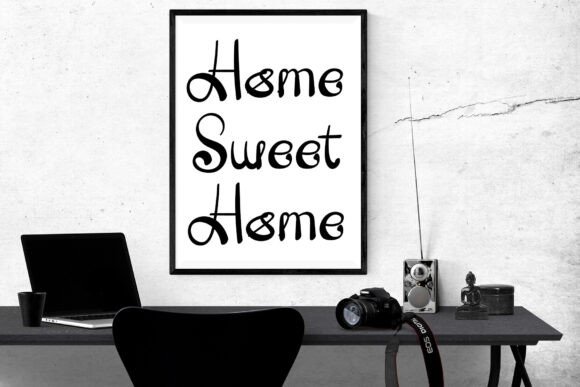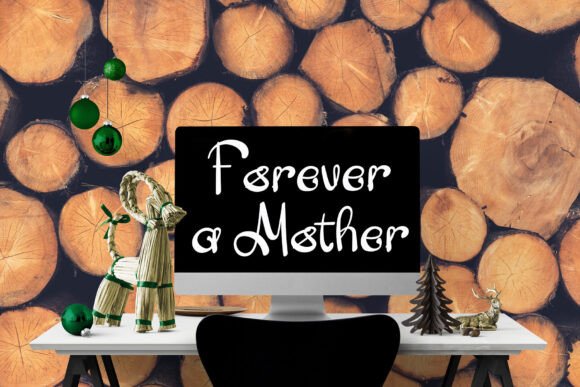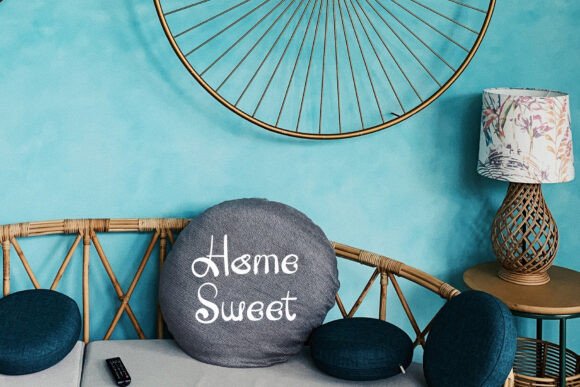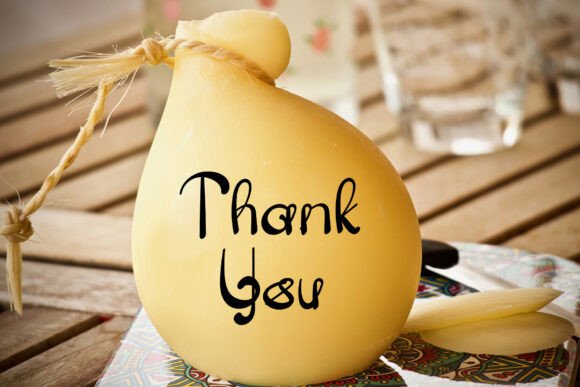
Introducing Anotherin Love Font: Elevate Your Designs with Elegance
Are you searching for a font that adds a touch of sophistication and romance to your projects? Look no further than Anotherin Love Font, a beautifully crafted typeface designed to make your creations stand out. In this article, we’ll delve into the features and benefits of Anotherin Love Font, and explore how it can be the perfect addition to your design toolkit.
A Professionally Crafted Font for Your Projects
Anotherin Love Font is a unique and elegant font, specially designed with a professional hand touch to ensure that your projects look polished and refined. Whether you’re working on a wedding invitation, a birthday card, or any other type of project that requires a personal touch, this font is perfect for the job. Its versatility makes it suitable for a wide range of applications, from formal events to creative school assignments.
Ideal for Various Creative Projects
This font is not just limited to greeting cards and party invitations. Its elegance and charm can be applied to various creative projects, including:
- Wedding invitation cards
- Birthday cards
- Party invitations
- School assignments
- Important events and announcements
With Anotherin Love Font, you can add a touch of class and sophistication to your designs, making them more engaging and memorable.
Key Features of Anotherin Love Font
So, what makes Anotherin Love Font so special? Here are some of its key features:
- Unique and Elegant Design: The font boasts a distinctive and refined design that will set your projects apart.
- Professional Hand Touch: Crafted with care, this font has a personal touch that makes it feel both luxurious and approachable.
- Versatile: Suitable for a wide range of projects, from formal to casual.